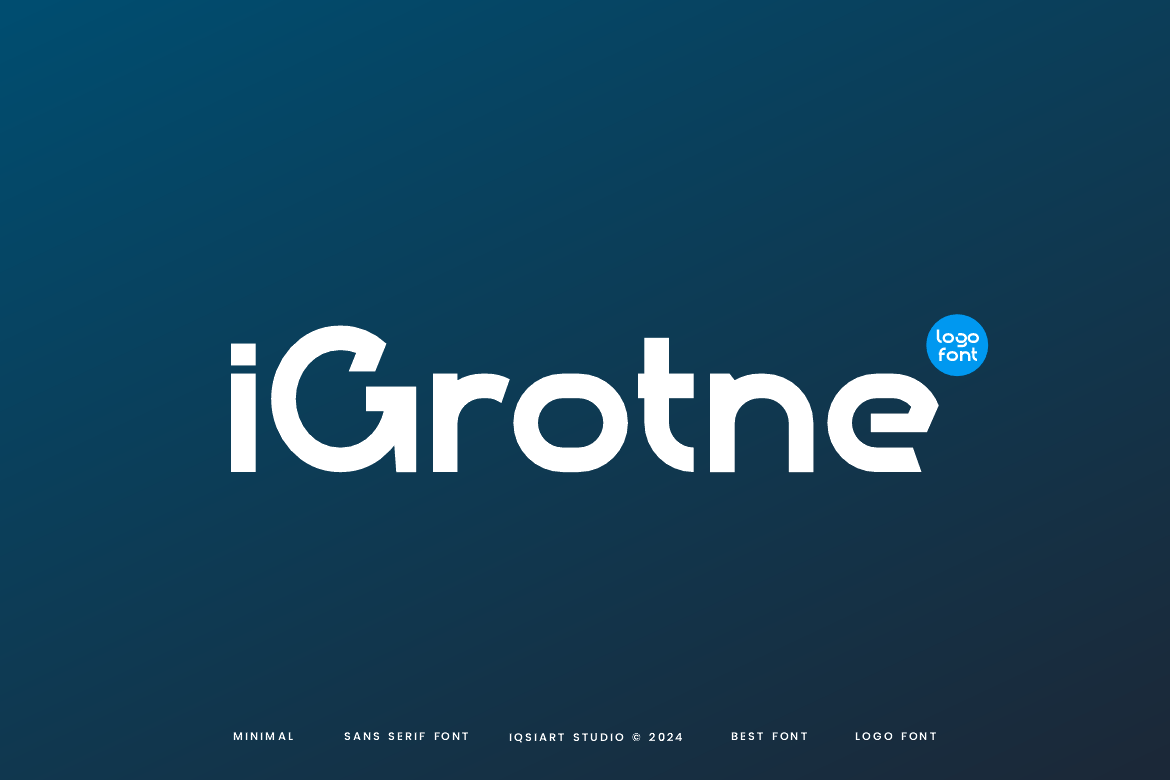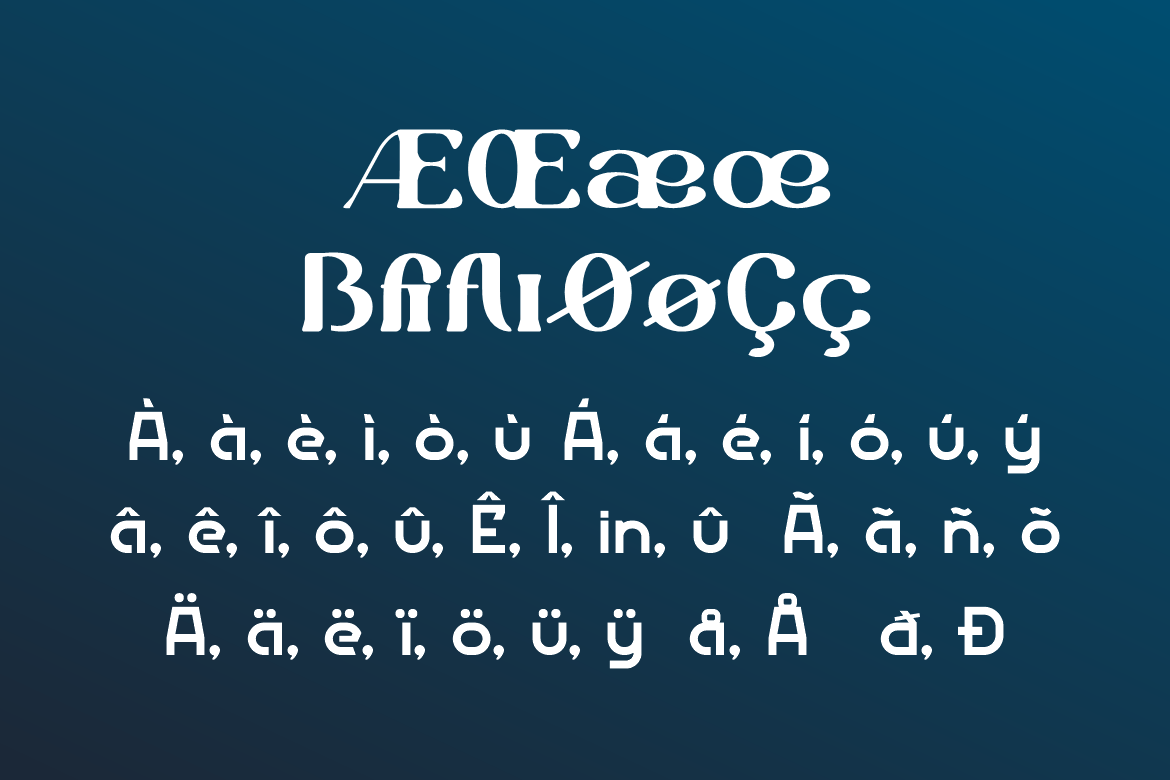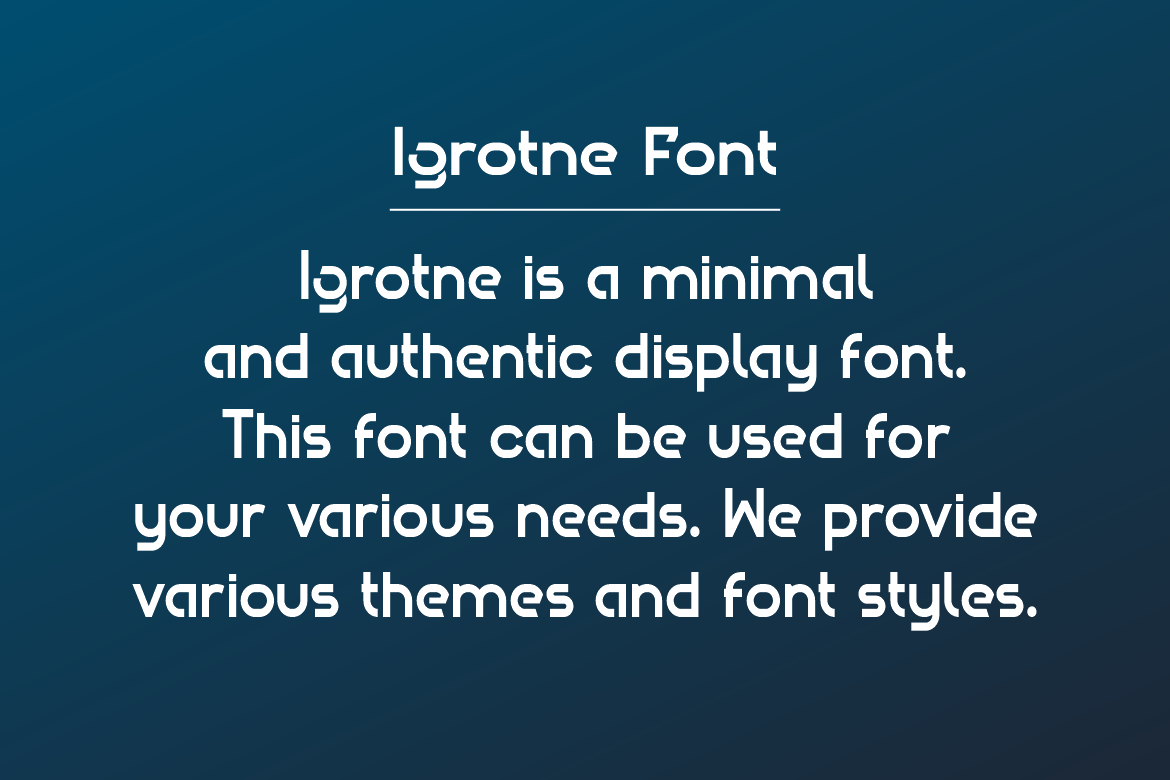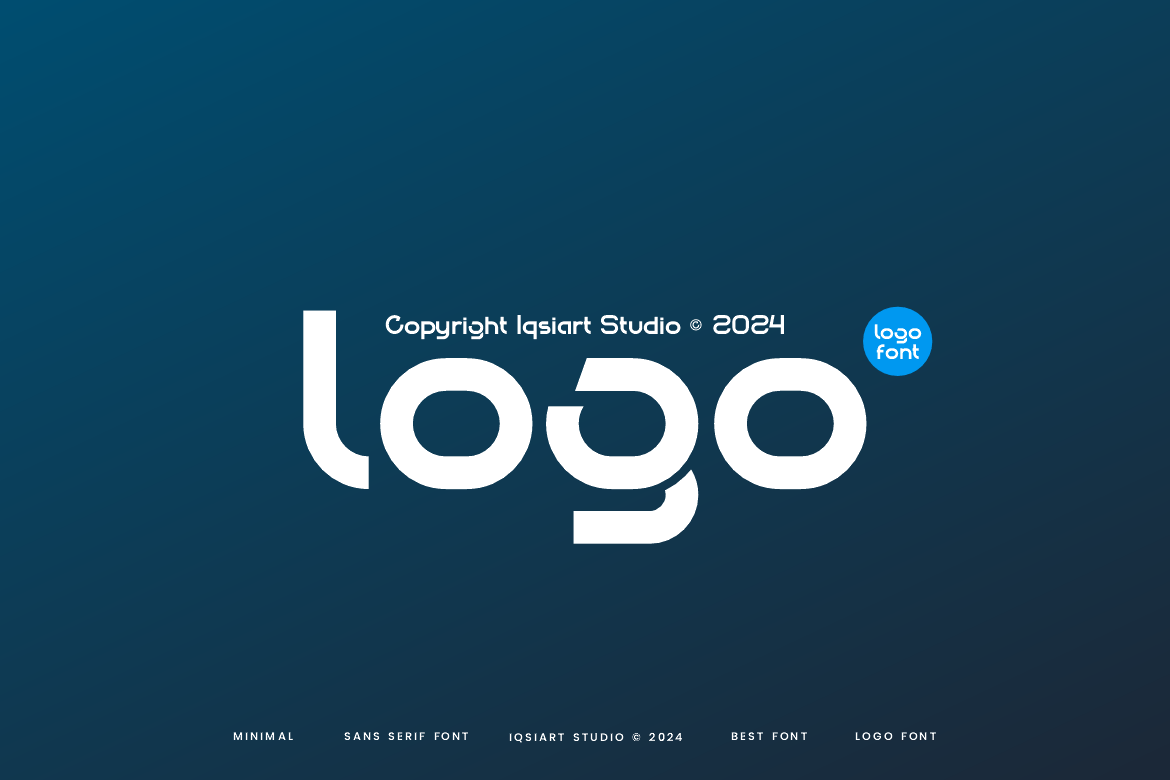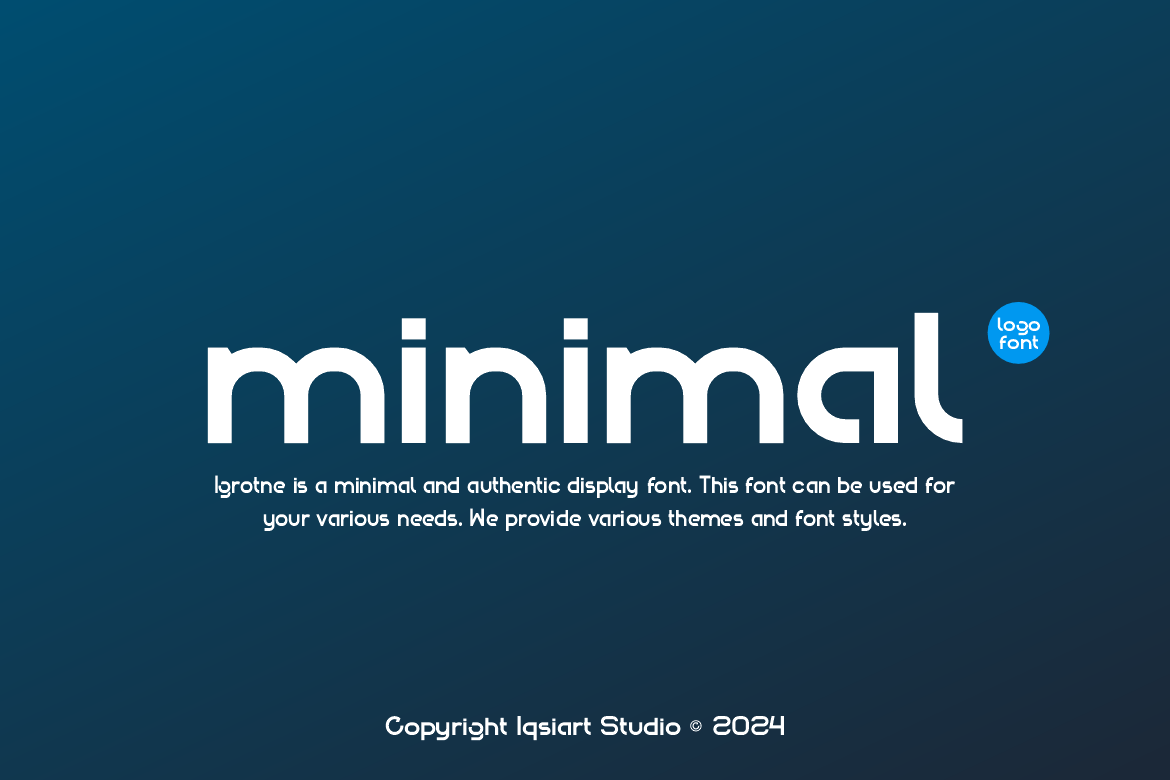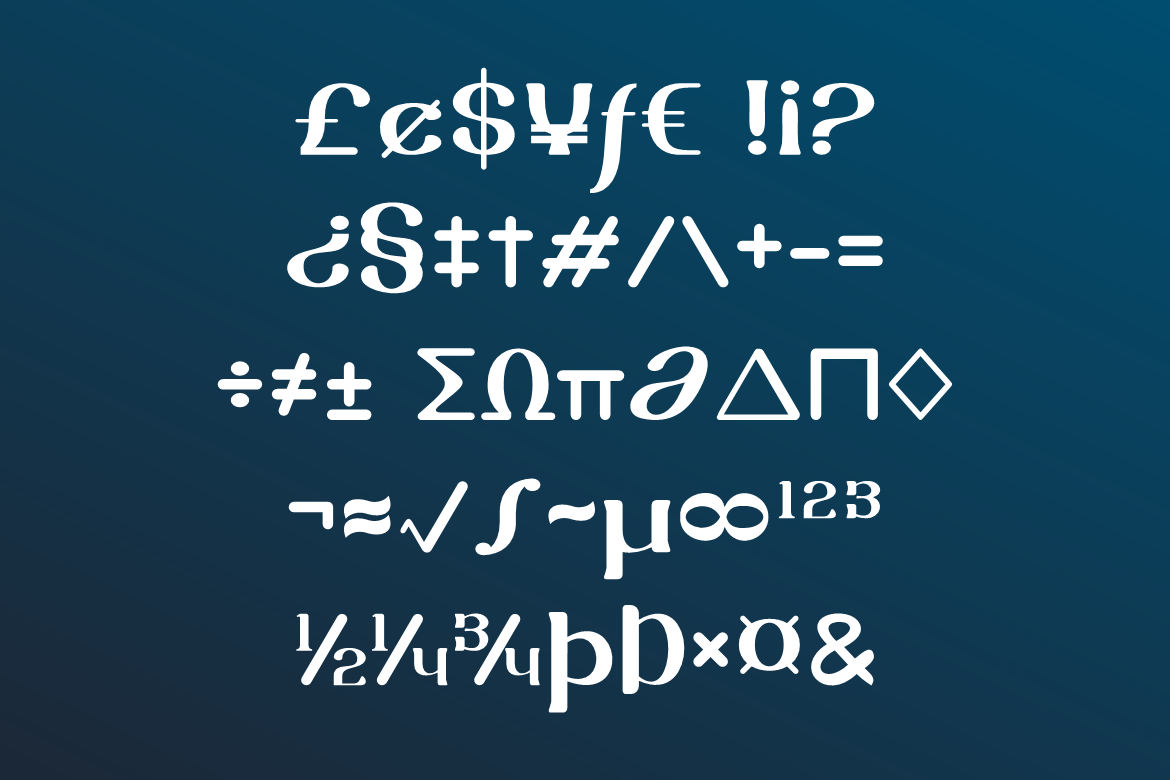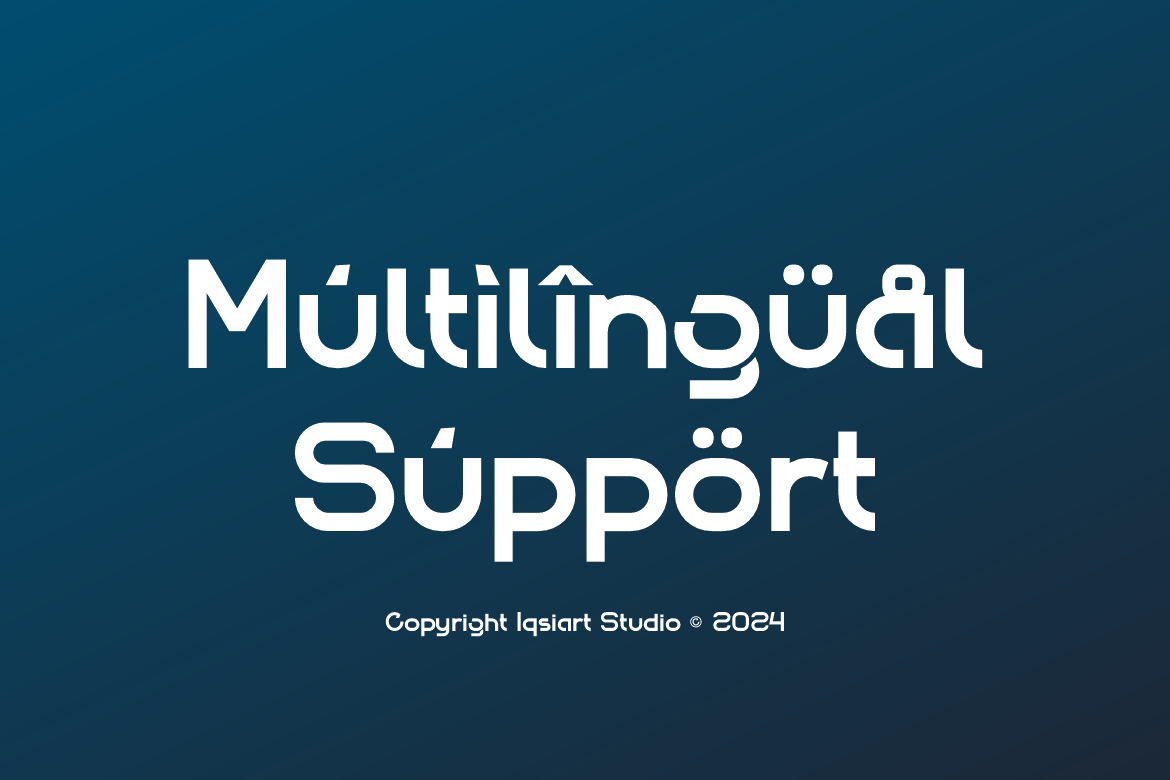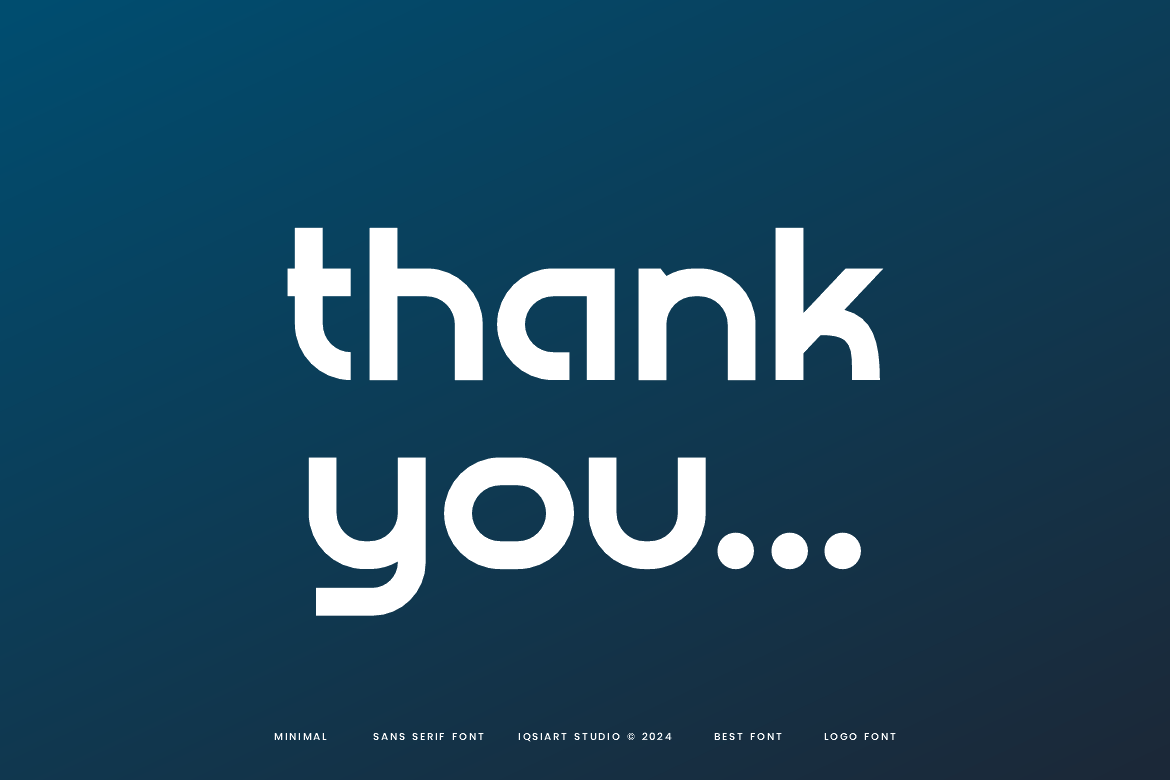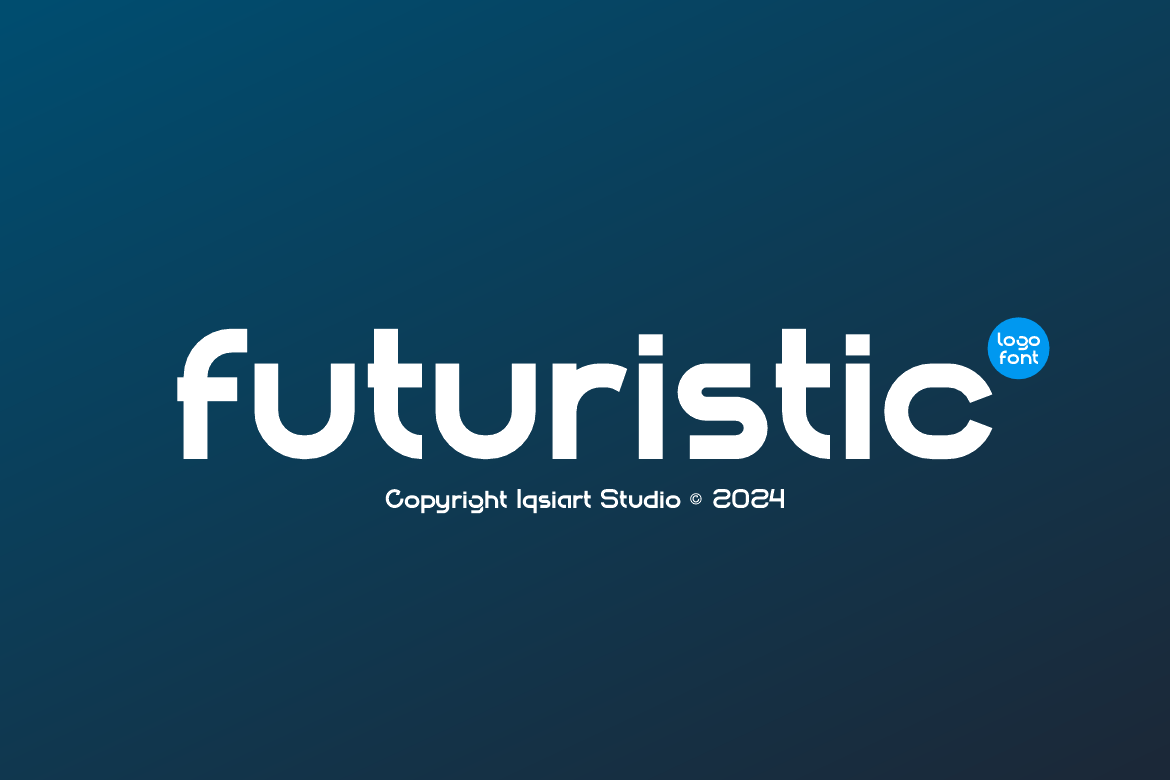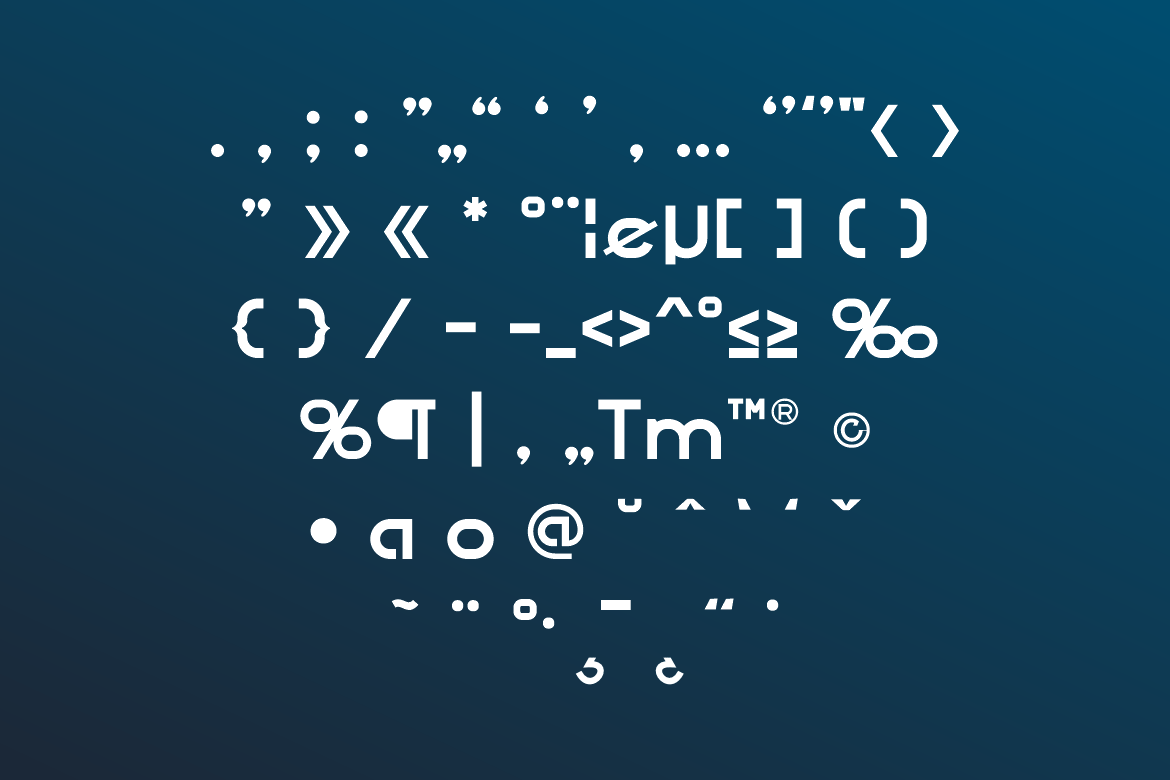
Igrotne Logo Font
Igrotne Logo Font Font is a best and authentic display font.
This font can be used for your various needs.
We provide various themes and font styles.
Main Features
- Extended Character Set
- Ligatures & Alternate
- Numeral & Punctuations